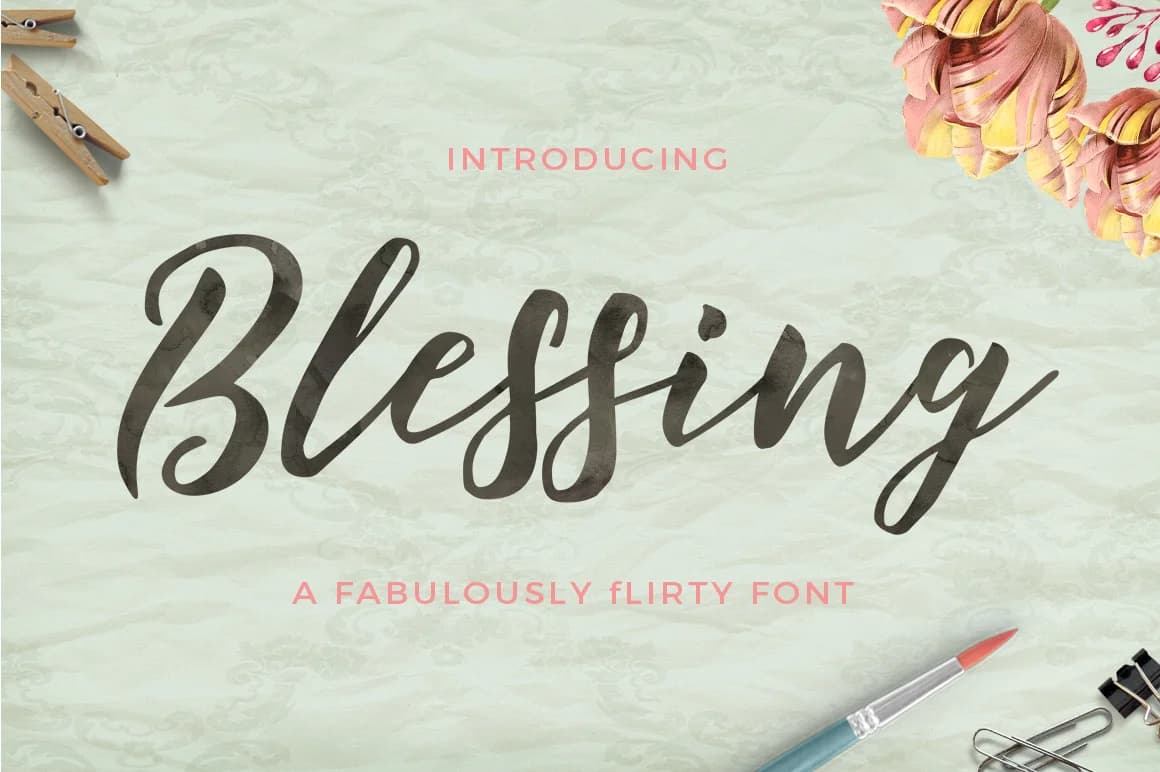
Blessing Font by Great Studio is a modern script typeface that captures the organic appeal of hand-lettering with refined execution. Built on natural flowing strokes and dynamic letterforms, this handwritten font brings personality and authenticity to any creative project that needs a human connection. Whether you're designing elegant wedding invitation suites, contemporary greeting cards, or custom product packaging, Blessing delivers the warmth of authentic handwriting without compromising on professional polish.
The font truly shines in personal branding work where modern aesthetic meets approachable charm. It's particularly suited to creating custom gift tags and stationery design, establishing cohesive visual identities for lifestyle brands, and crafting social media graphics that stand out in content-heavy feeds. Designers working on boutique packaging, event signage, or artisan product labels will find Blessing's balanced proportions and consistent rhythm make it both versatile and reliable across various applications.
What sets this script apart is how seamlessly it bridges the gap between handcrafted authenticity and contemporary design sensibility. The letterforms maintain legibility while preserving that genuine, organic quality that resonates with modern audiences. Discover Blessing Font on Creative Fabrica and bring its distinctive character to your next design project.
Blessing Font is a script font that shines as a display or heading face. Pair it with a clean sans-serif or serif font for body text β the contrast creates a clear hierarchy while the two styles stay balanced and easy to read.